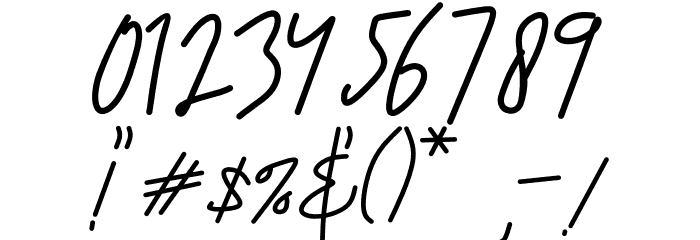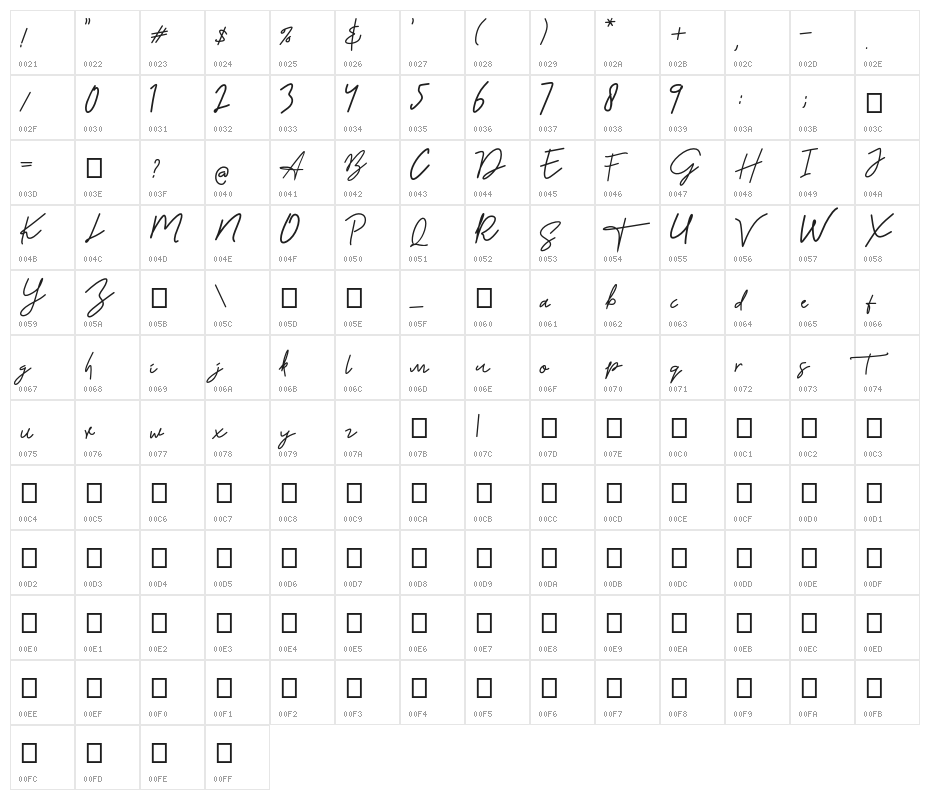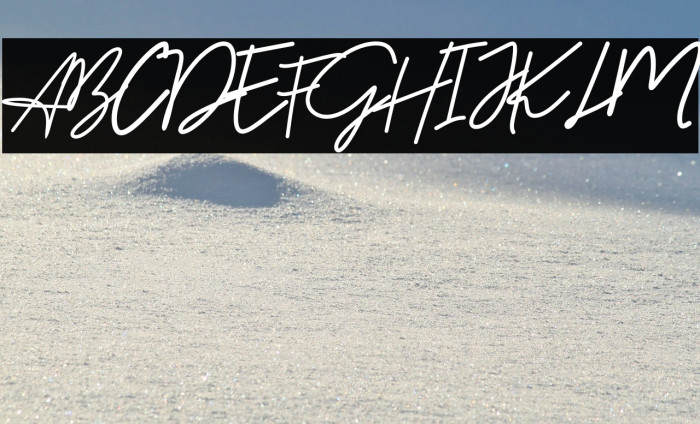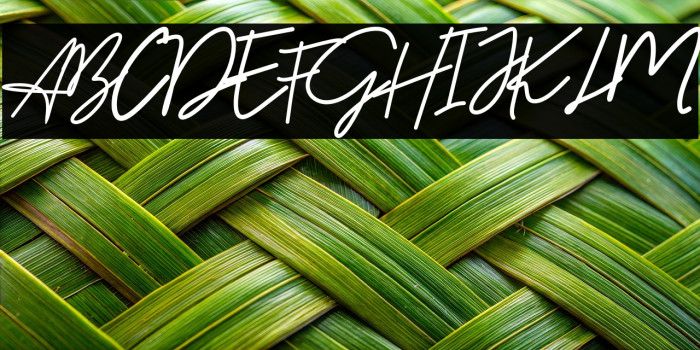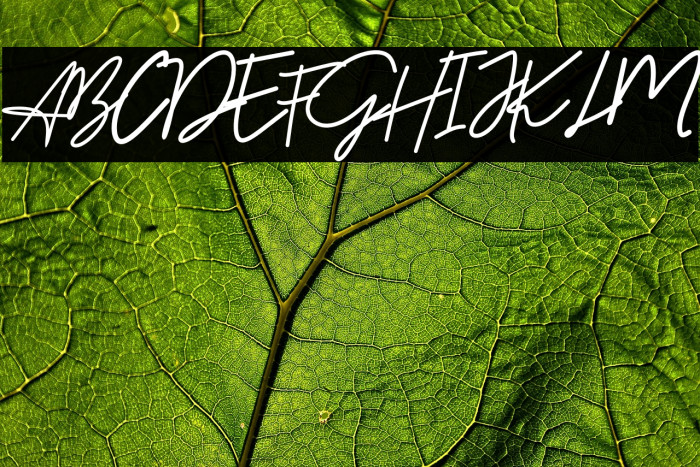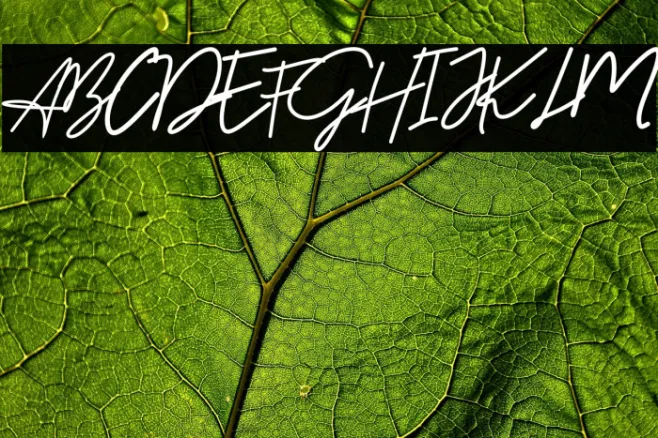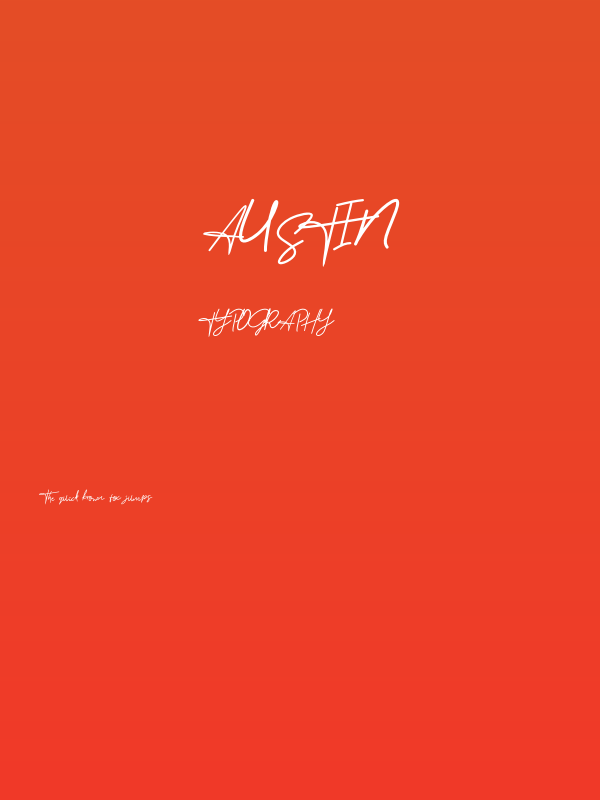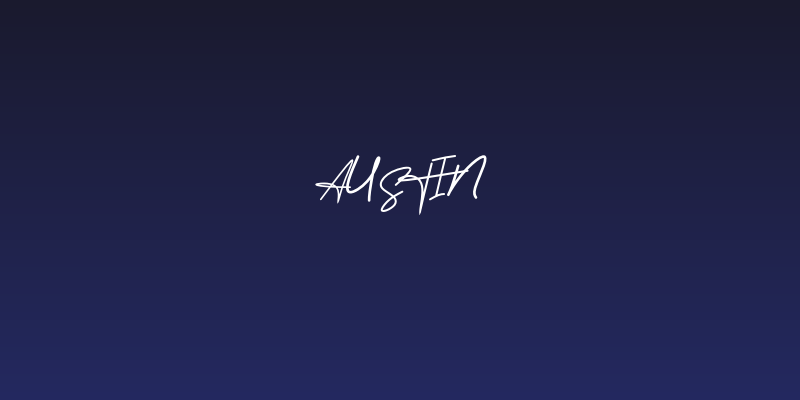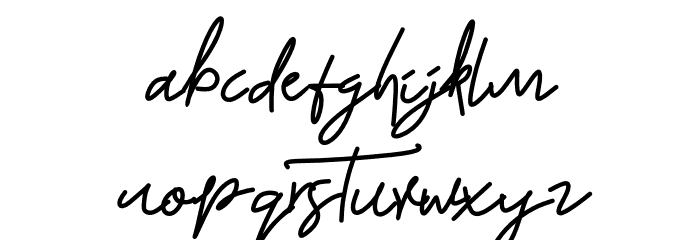
AUSTIN Font
AUSTIN Description
This font features a dynamic and expressive handwritten style, characterized by its fluid and cursive strokes. The letters are connected, giving it a natural flow that mimics authentic handwriting. The uppercase letters are bold and prominent, while the lowercase letters maintain a consistent rhythm. The numerals are clear and legible, complementing the overall aesthetic. Special characters are integrated seamlessly, enhancing the font's versatility. This style is perfect for adding a personal touch to any design, making it ideal for creative projects that require a humanistic and approachable feel.